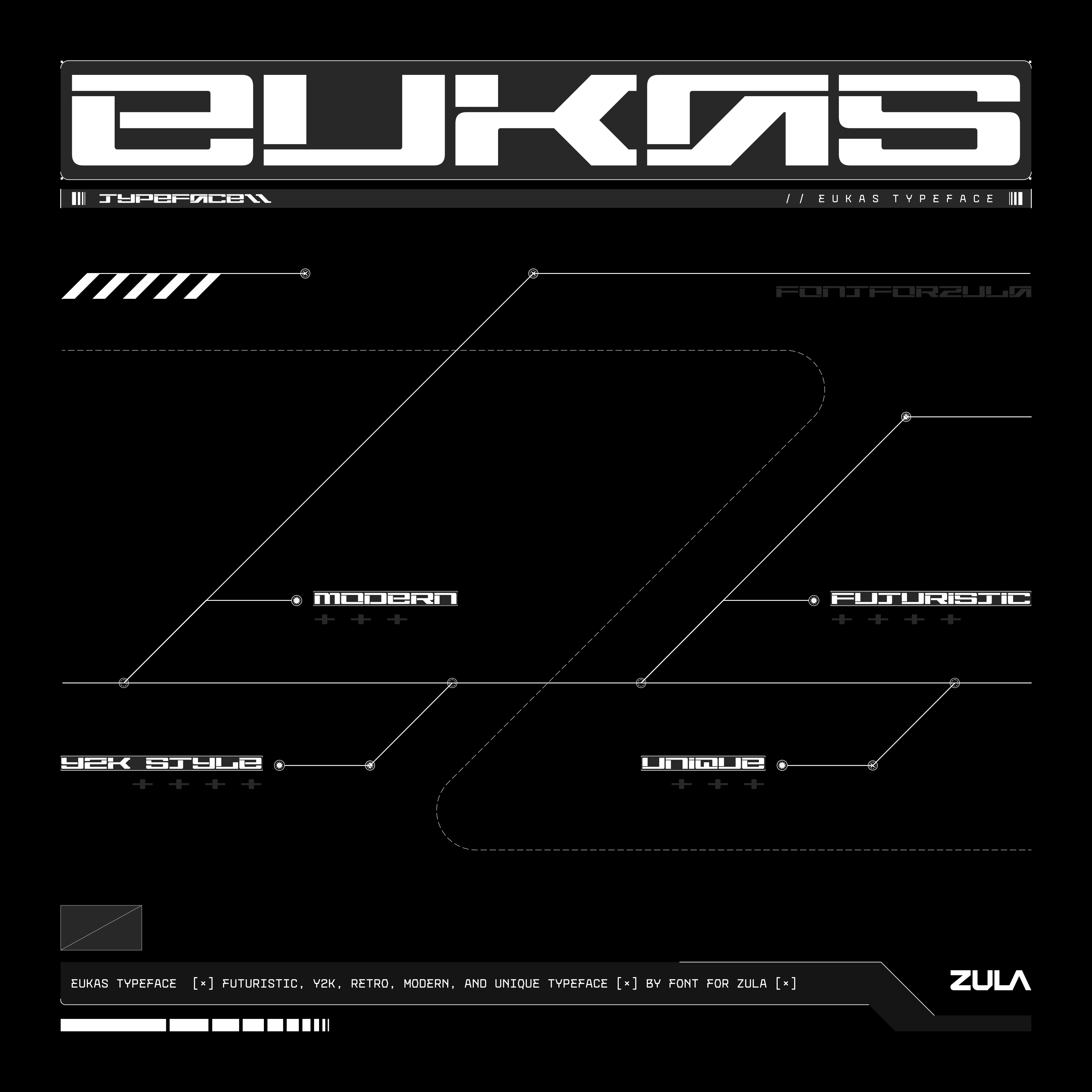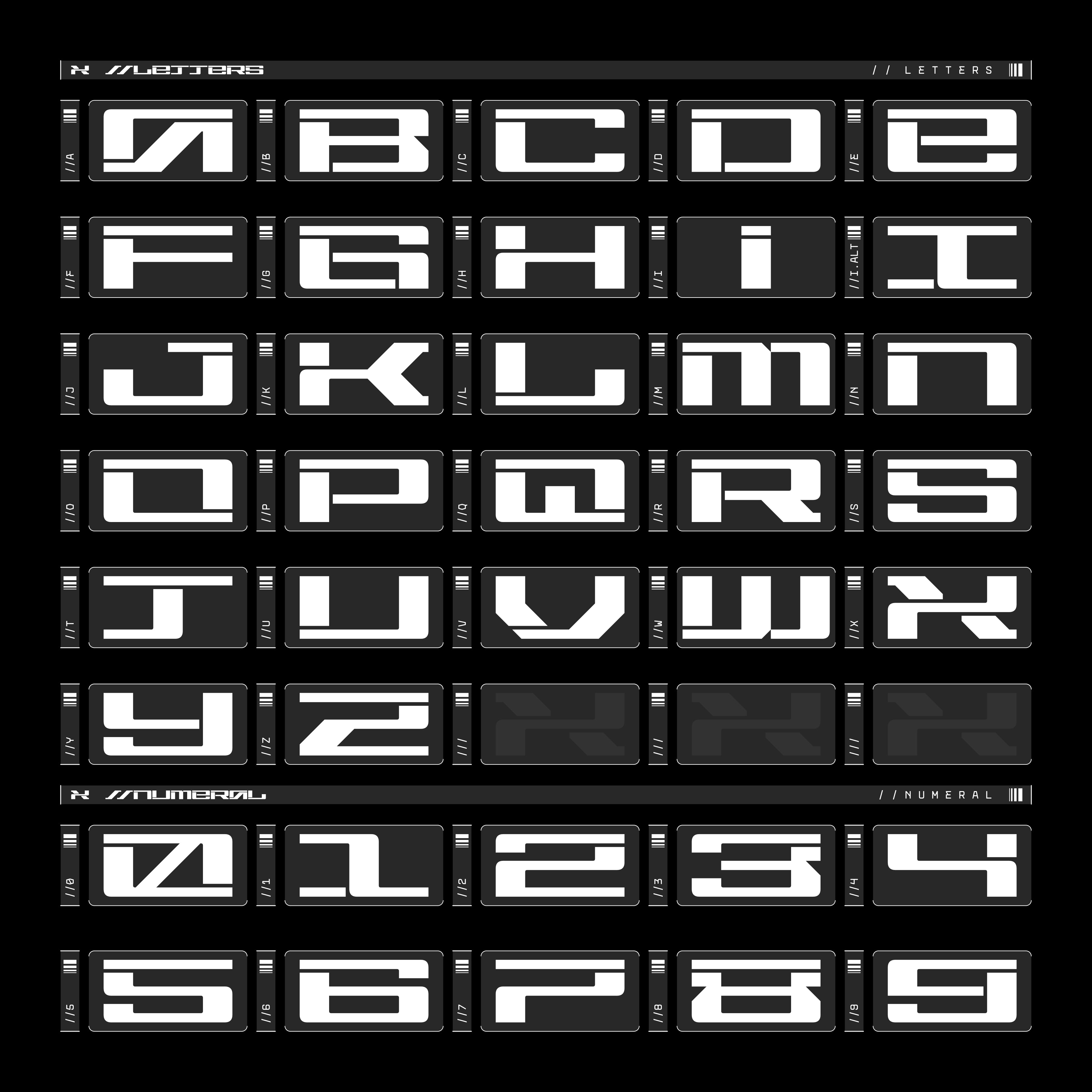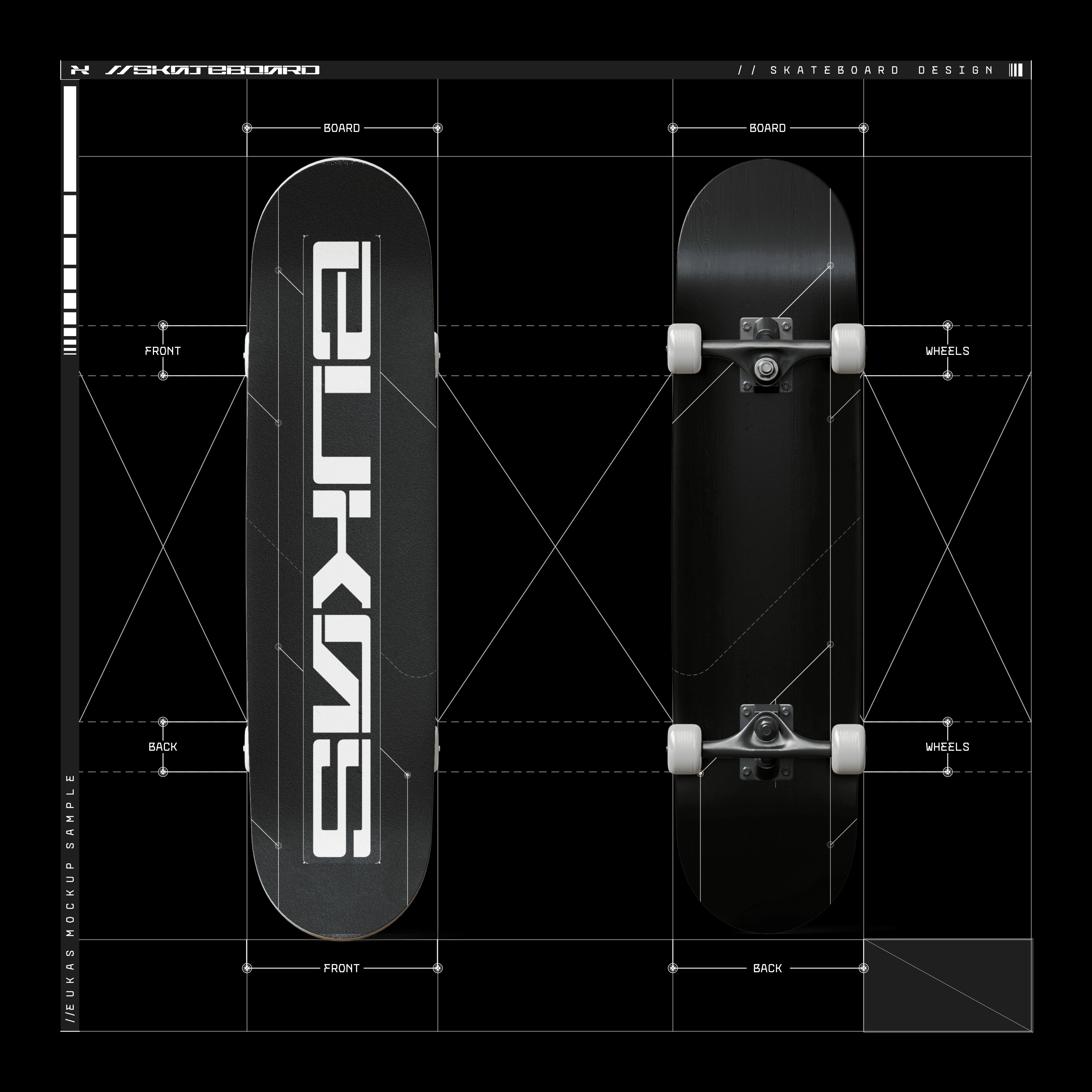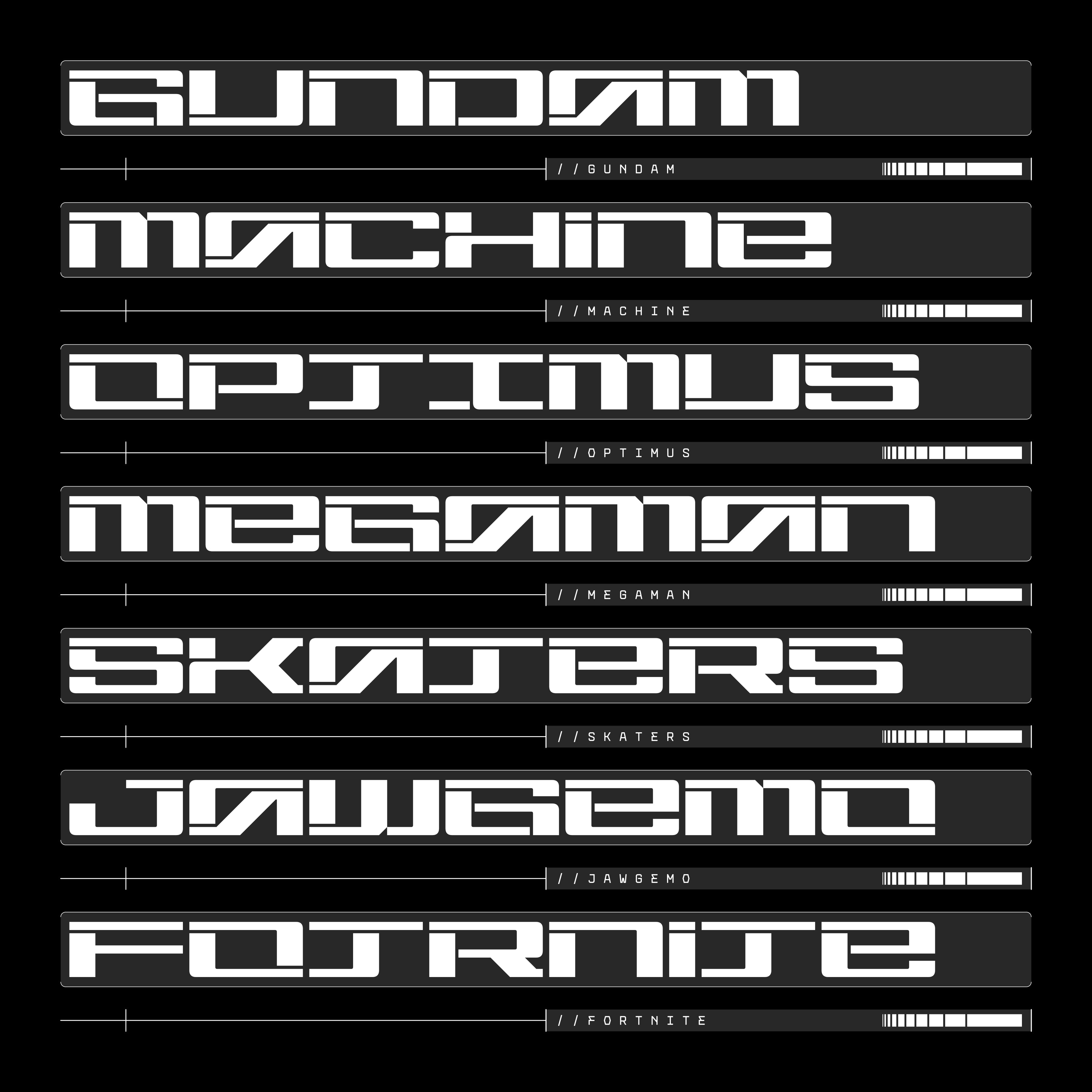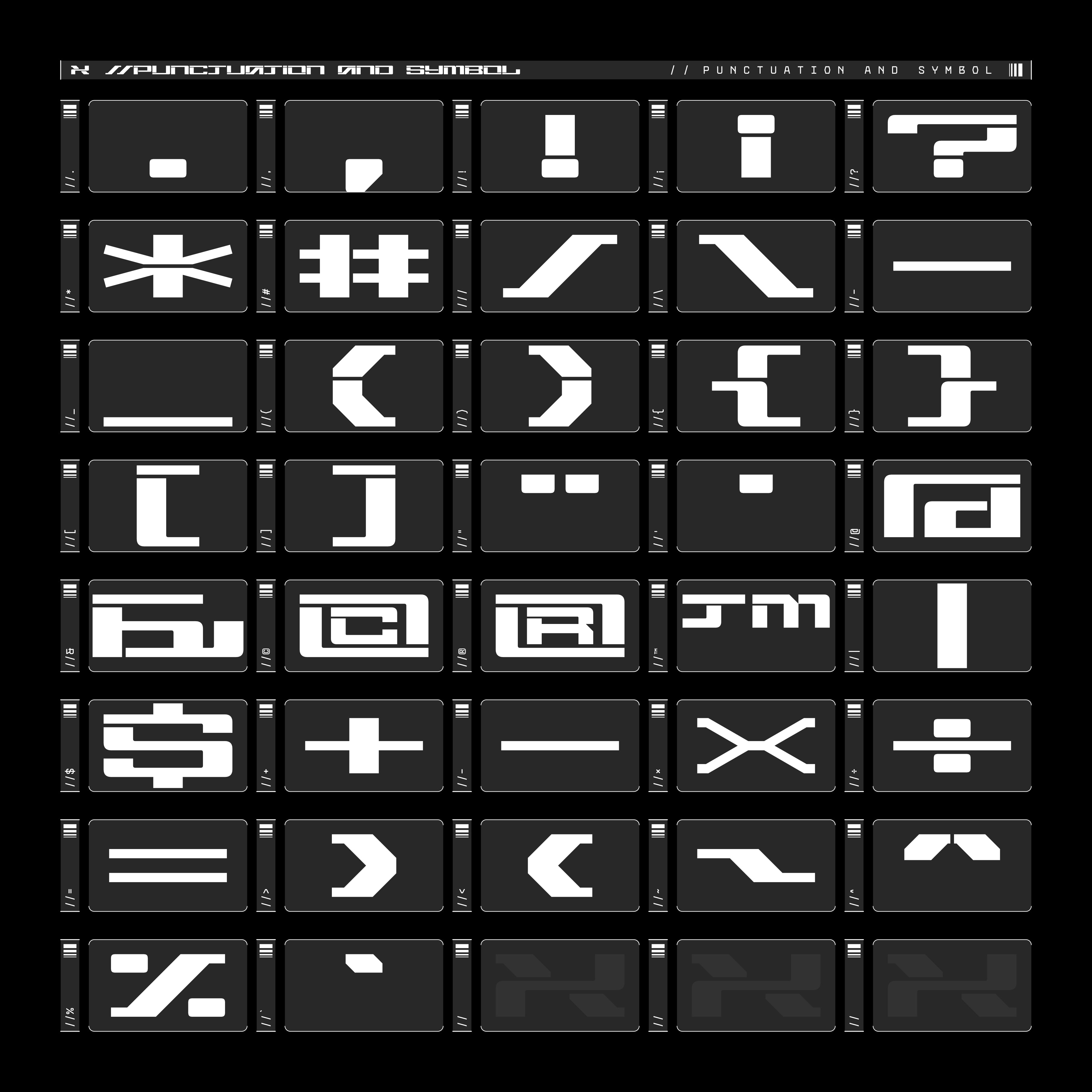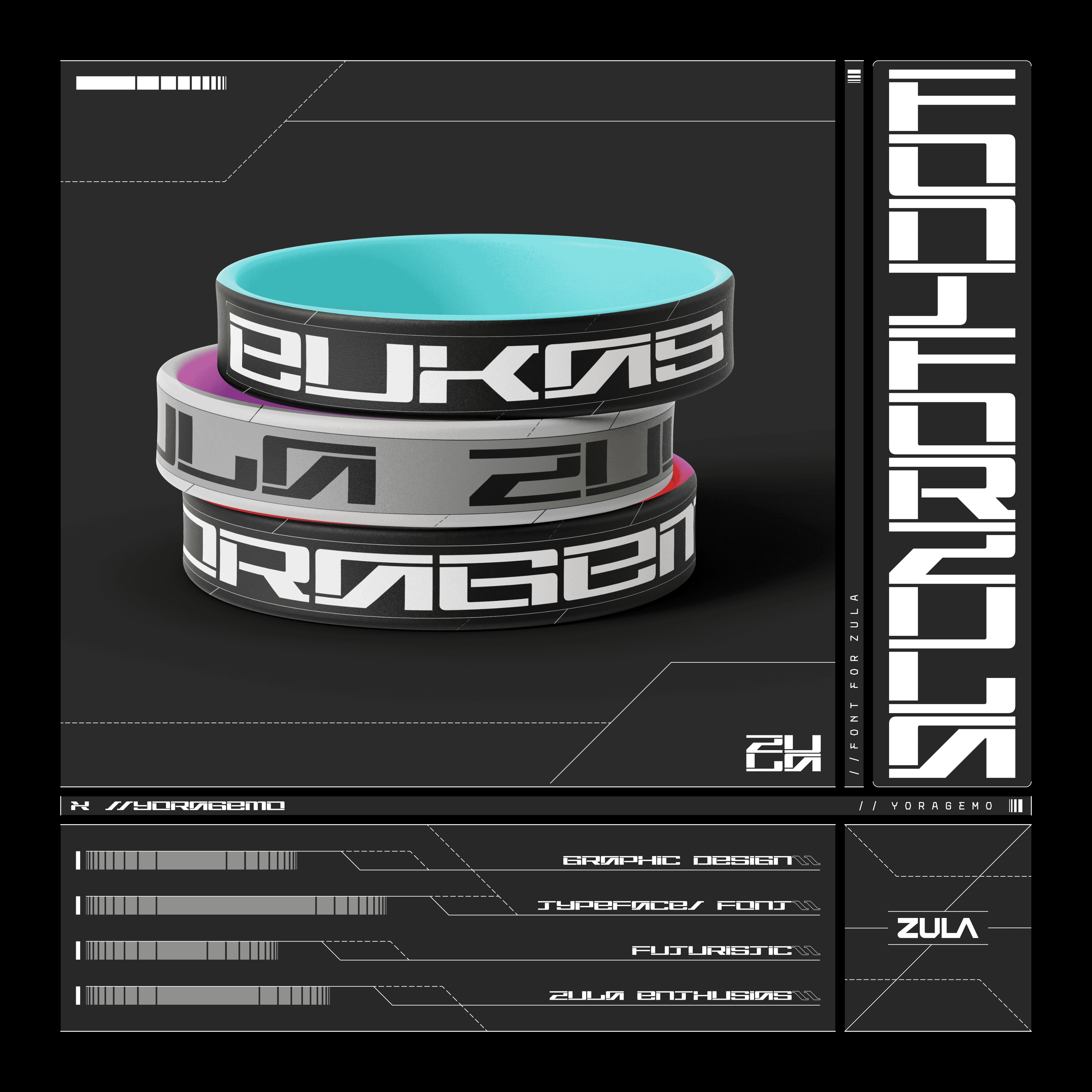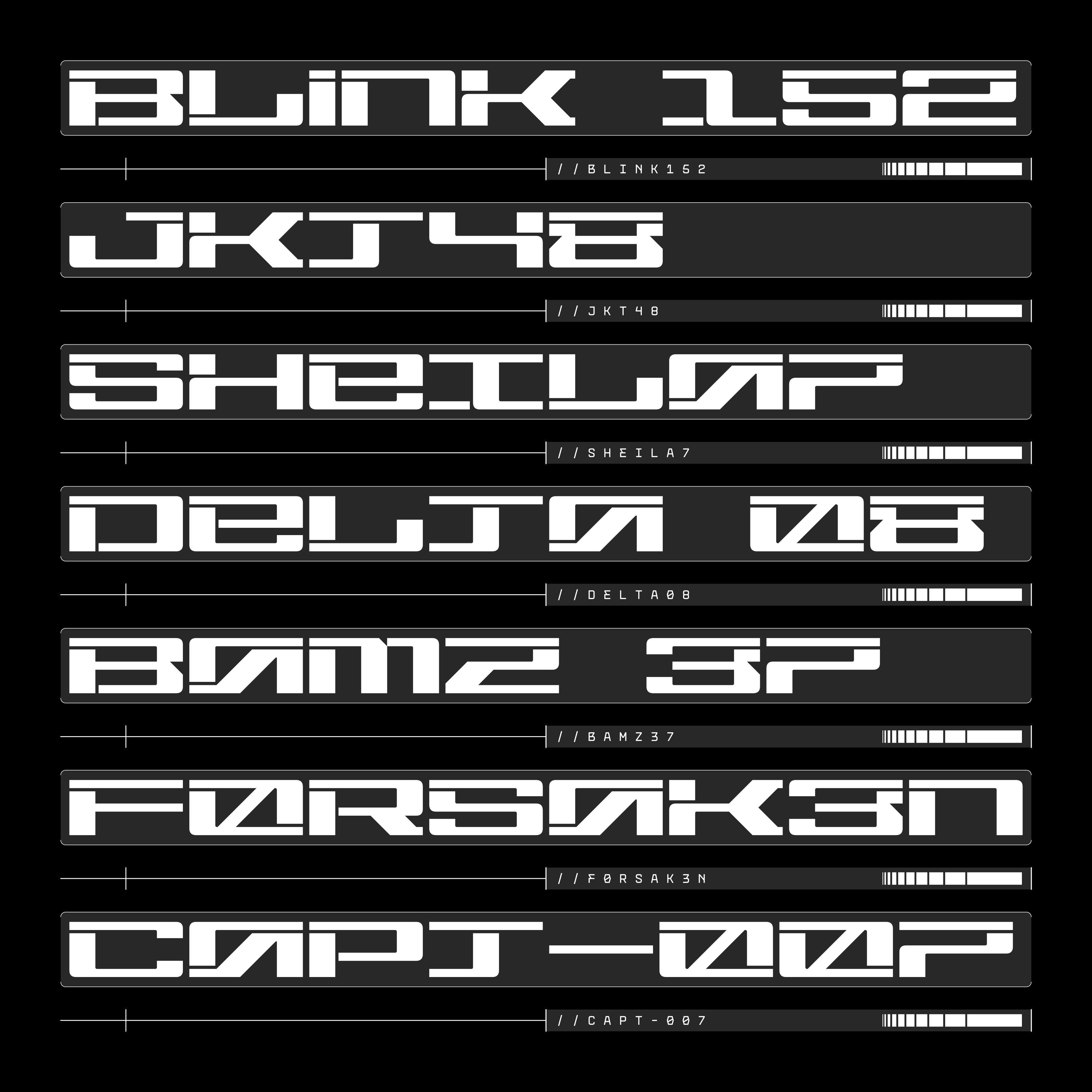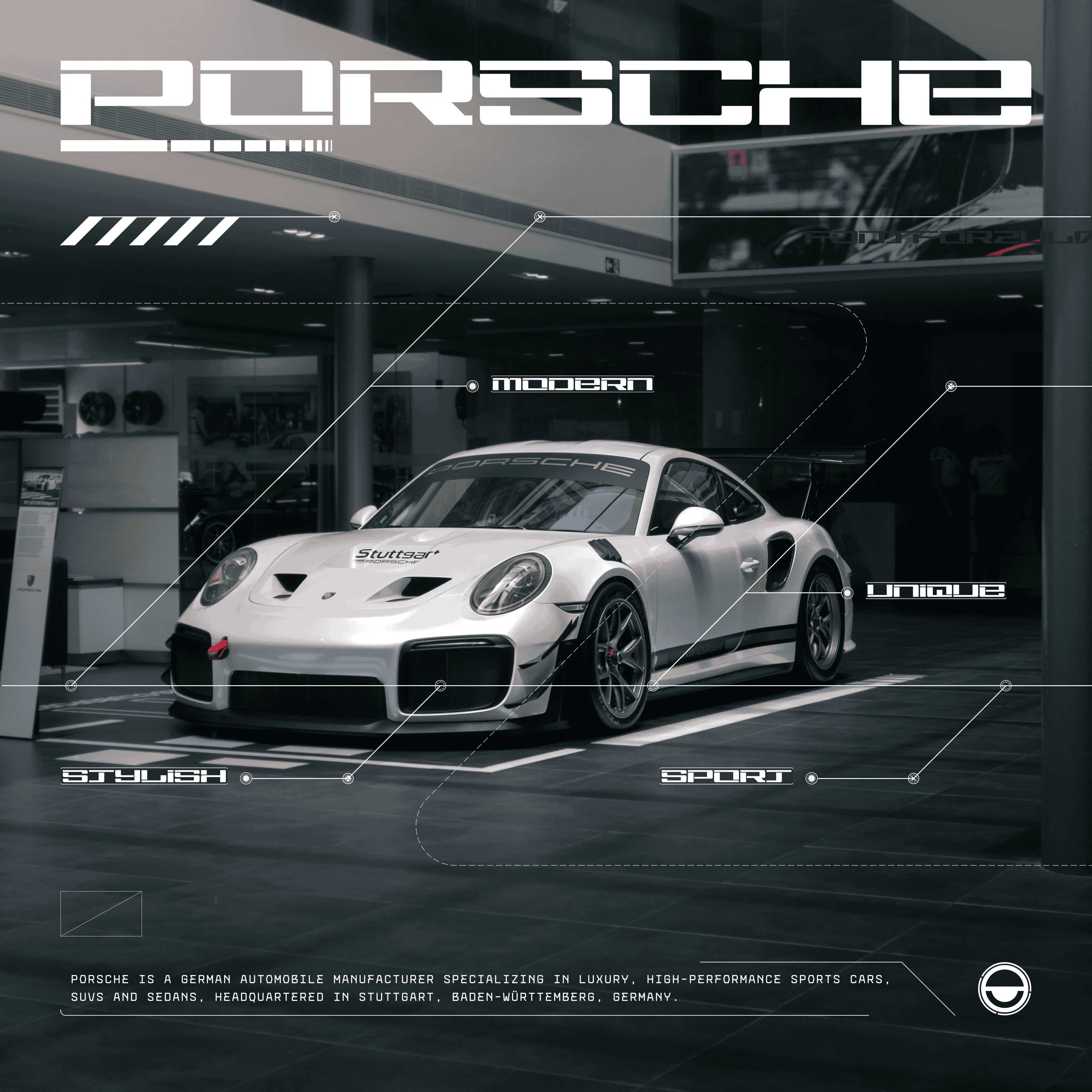
EUKAS TYPEFACE
EUKAS IS A ALL CAPS FONT THAT COMBINES FUTURISTIC, RETRO, CYBERPUNK, AND Y2K ELEMENTS WITH A BOLD LOOK. IT'S PERFECT FOR POSTERS, DISPLAYS, AND PROJECTS THAT REQUIRE A BOLD AND EYE-CATCHING LOOK.
• 26 LETTERS AND 1 ALTERNATE
• 10 NUMERALS
• BASIC PUNCTUATION, SYMBOLS, AND MARKS
EUKAS TYPEFACE is an all-caps font that features a bold design, incorporating futuristic, retro, cyberpunk, and Y2K elements. It includes OTF/TTF and WOFF formats, 26 letters plus 1 alternate, 10 numerals, and basic punctuation, symbols, and marks.